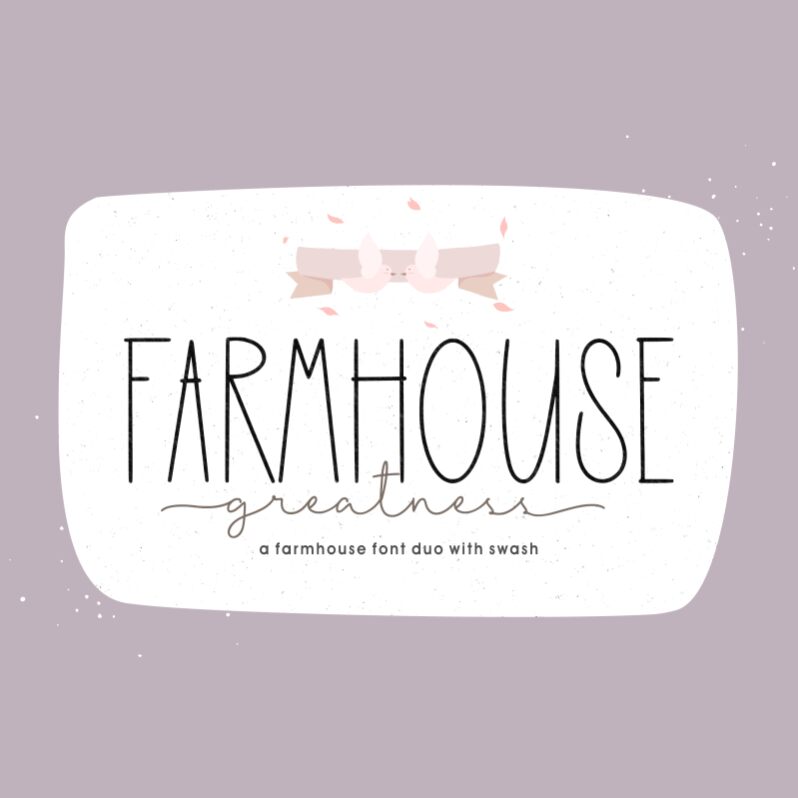
Farmhouse Greatness Script
Farmhouse Greatness Script is a stunning handwritten font designed by Qwrtype Foundry. Its light weight and elegant strokes make it perfect for a variety of projects, such as wedding invitations, greeting cards, and social media graphics. This script font adds a touch of sophistication to any design, while still maintaining a playful and approachable feel. Whether you're creating branding materials for a small business or designing custom prints for your home decor, Farmhouse Greatness Script is the perfect choice for adding charm and character to your work.